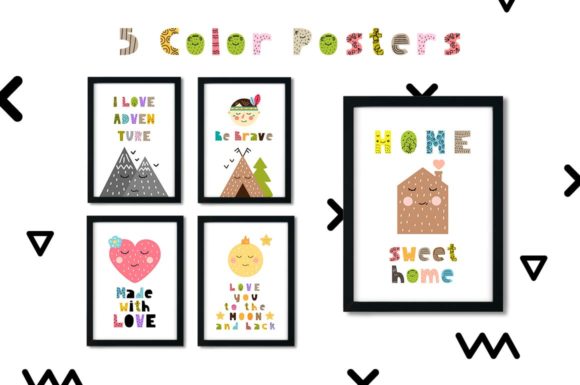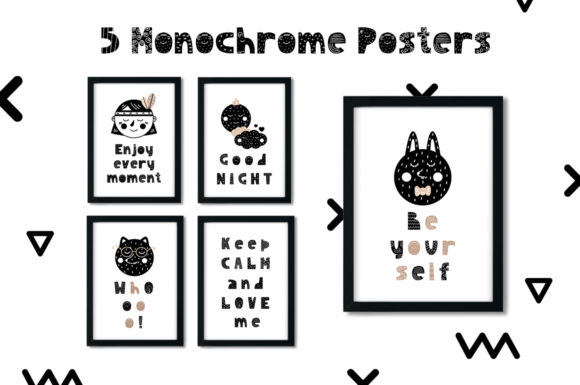
Introduction to Lazy Olov Font
Lazy Olov is an incredible color font, inspired by Scandinavian designs.
It will add a unique and playful feel to any design project Note.
Key Features of Lazy Olov Font
Why Choose Lazy Olov Font?